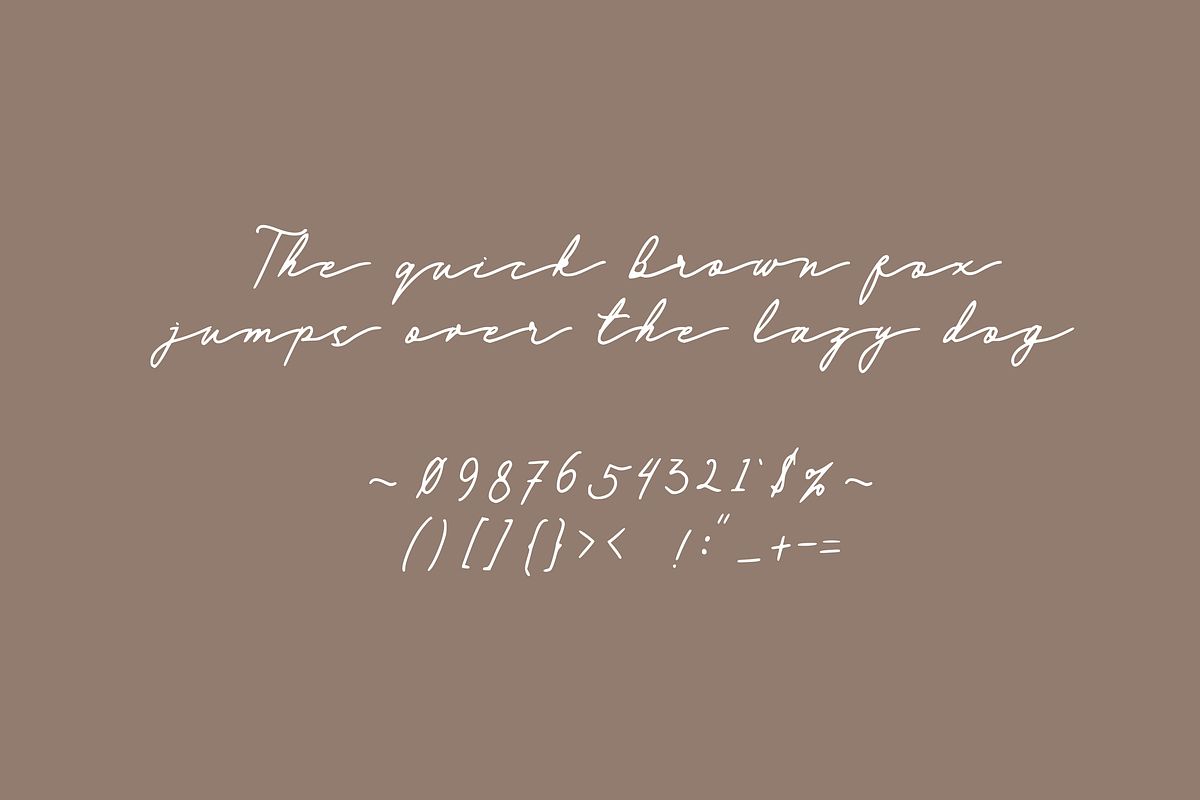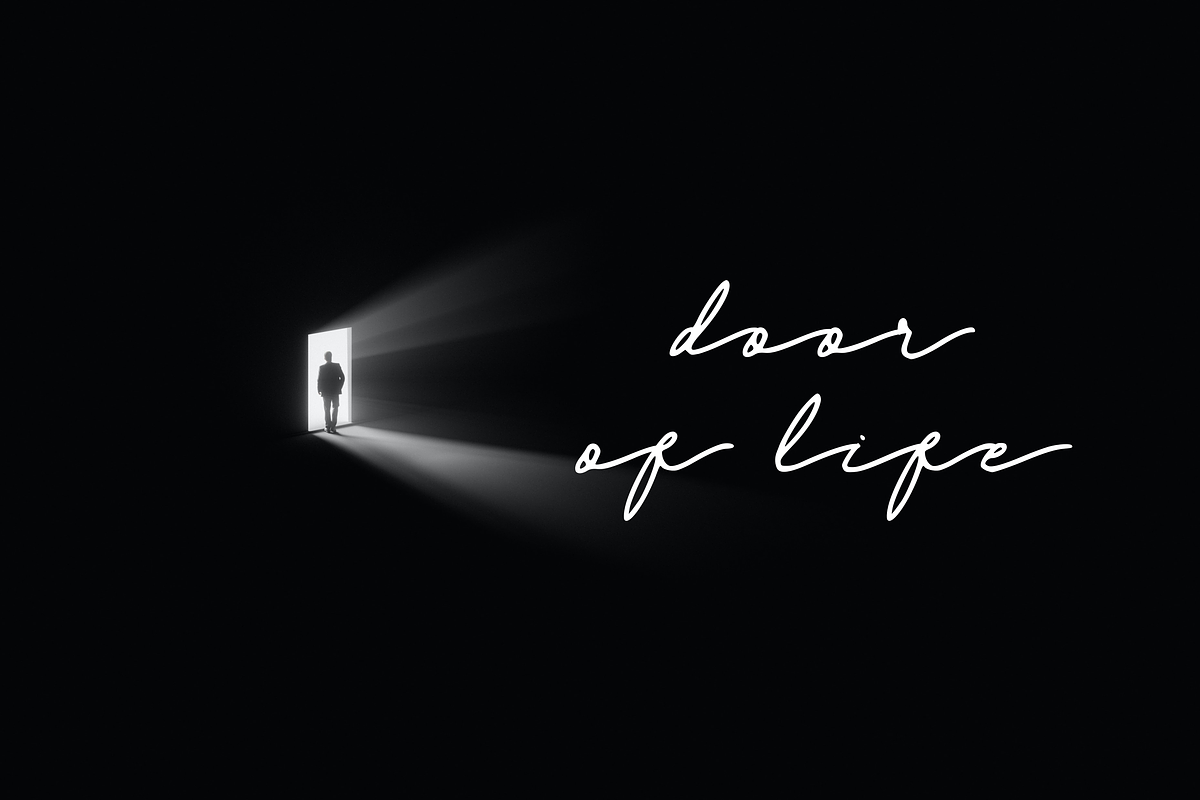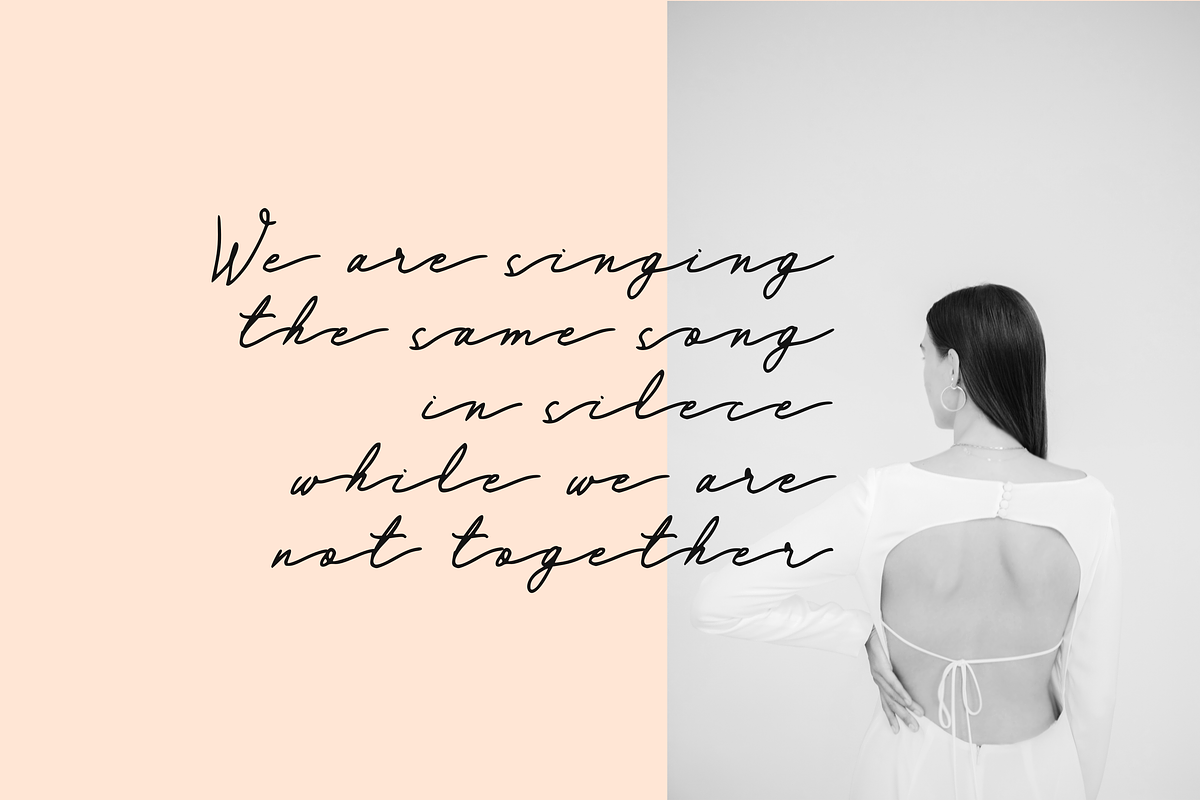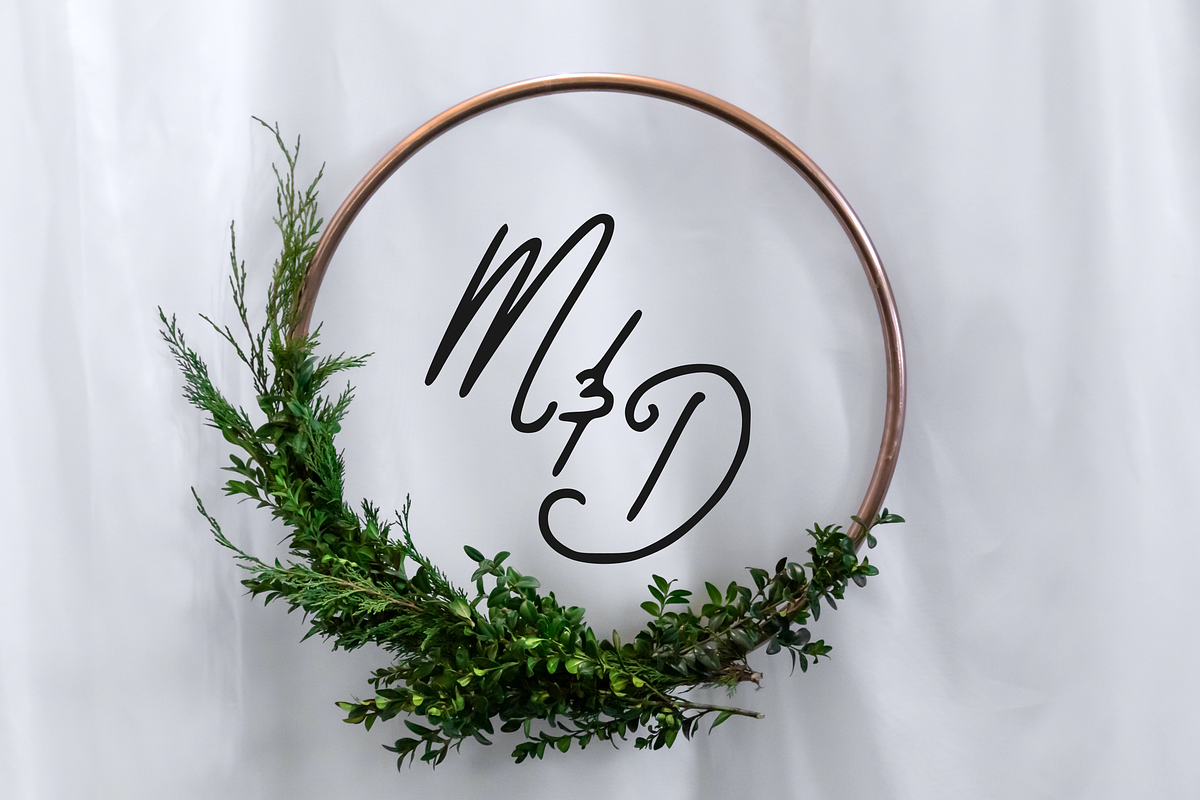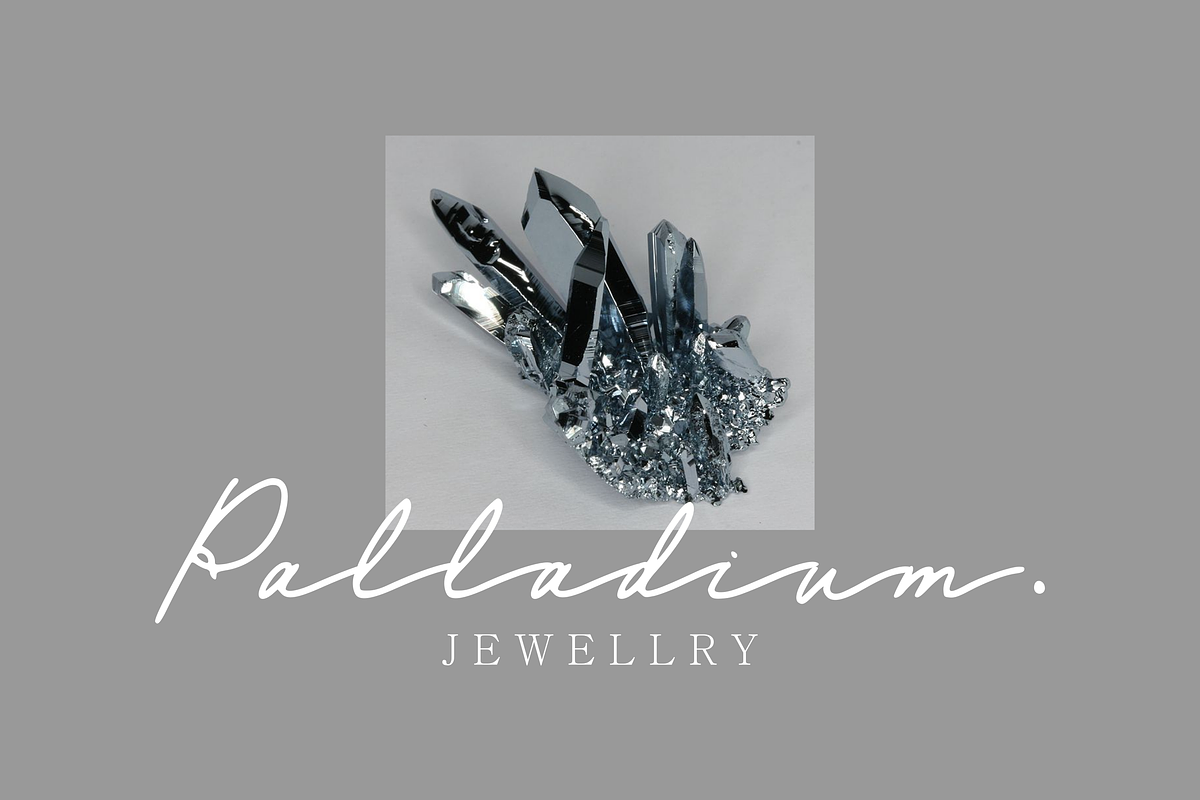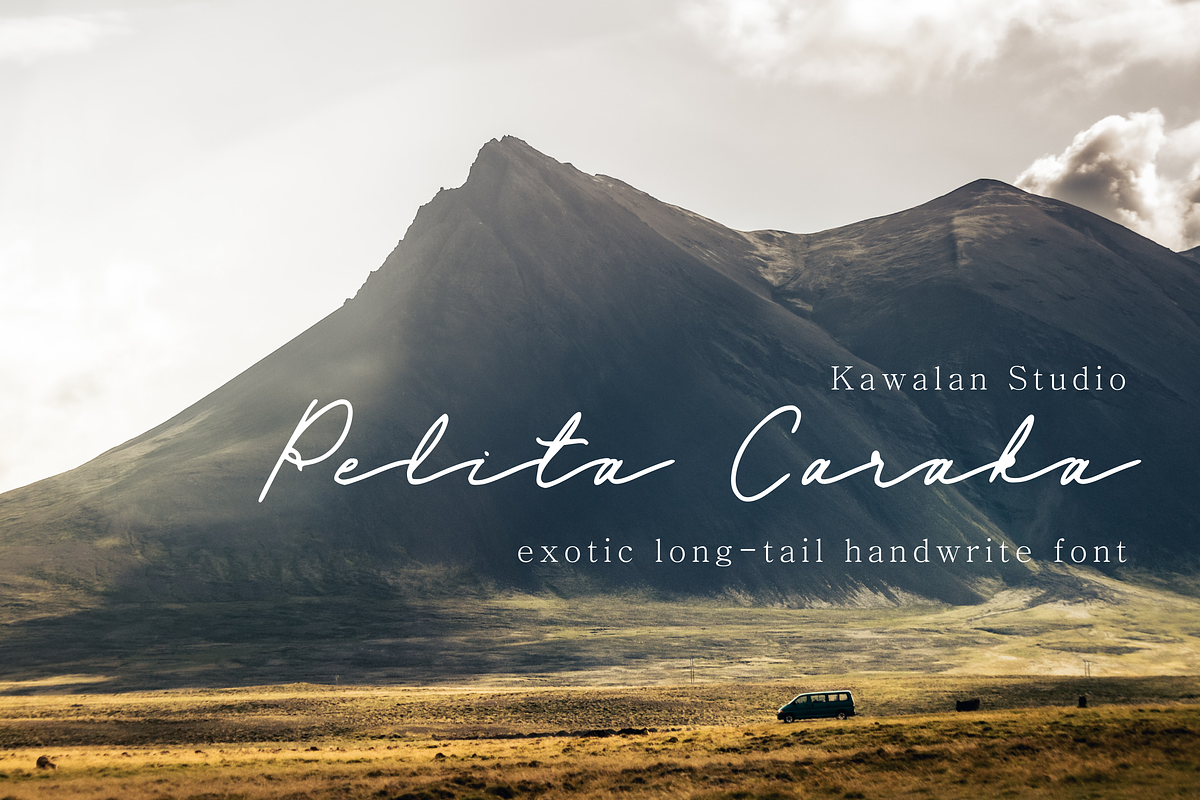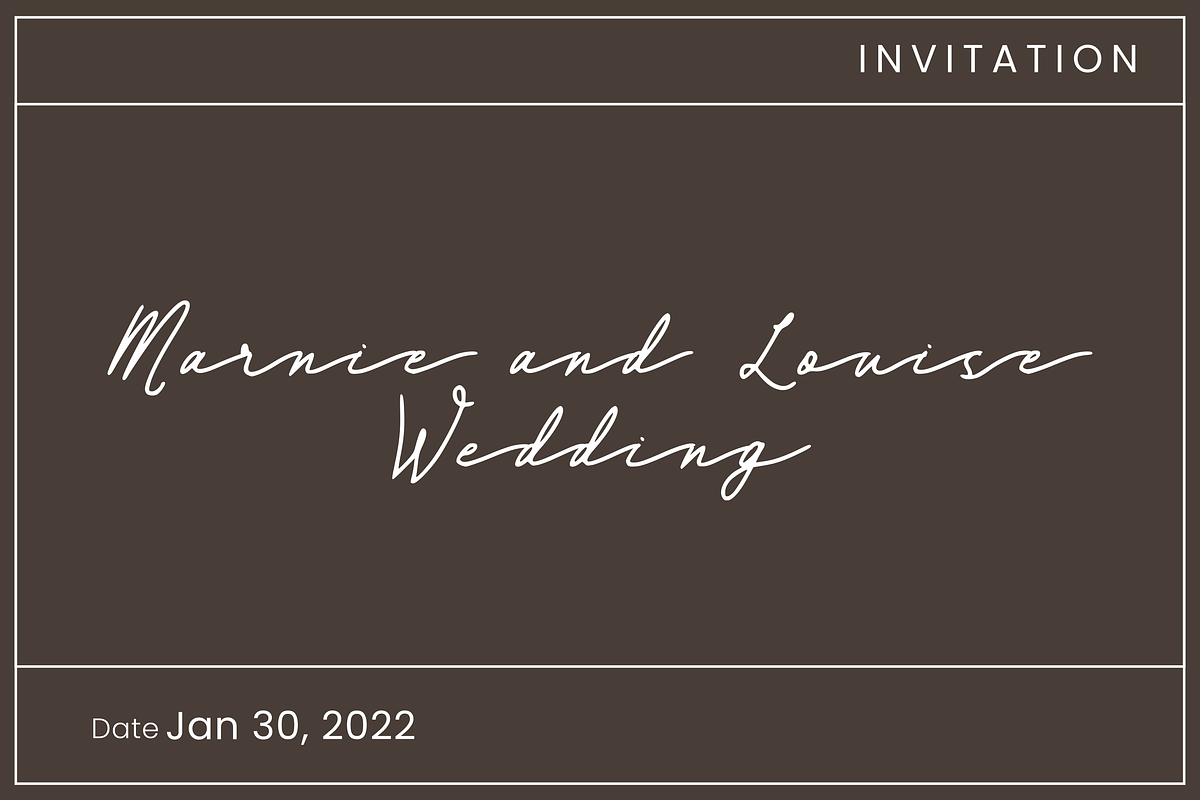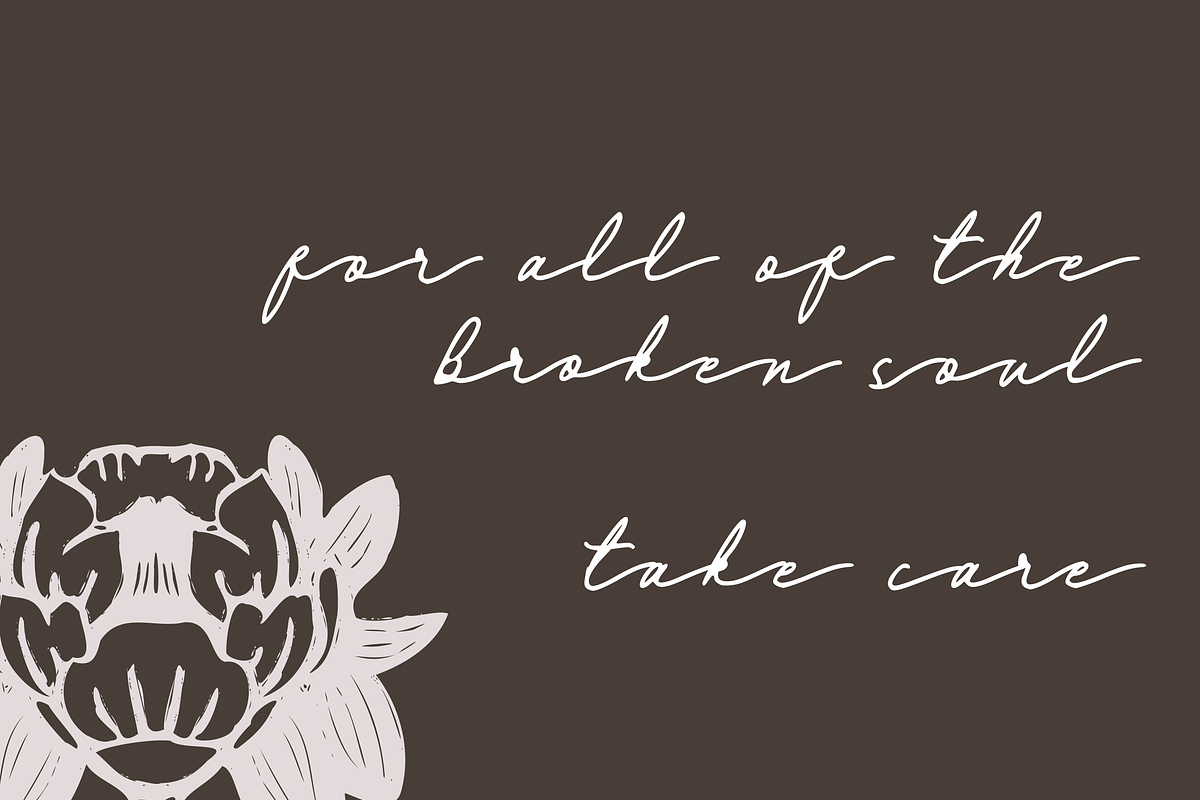
Pelita Caraka
Pelita Caraka means Light Adventurer from Indonesia and Sansekerta language. A script font with long tail is compatible with signature, modern, classic, personal, weeding, and beauty theme. The hand write style in Pelita Caraka give a authentic touch and the tail give a broad vibes. Pelita caraka could be used to various output such as wedding invitation, greeting cards, beauty product package, logo, magazine, and any other type advertisement.